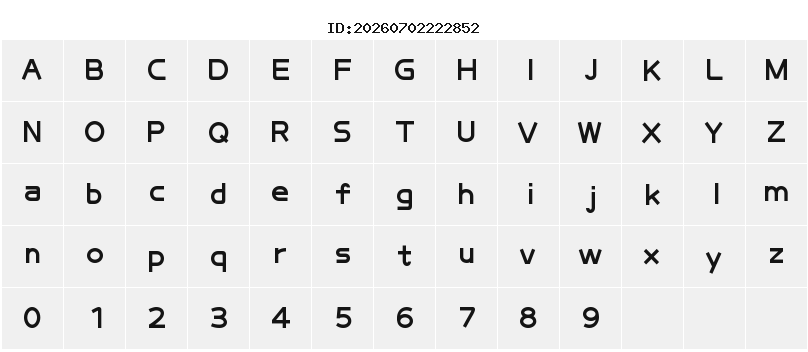
267-上首柔黑体 Preview
• Font Name: 267-上首柔黑体
• Full Font Name: 267-上首柔黑体
About 267-上首柔黑体.ttf
267-上首柔黑体.ttf is a modern, elegant sans-serif font designed for ultimate readability and visual harmony. Perfect for branding, headlines, web design, and print materials.